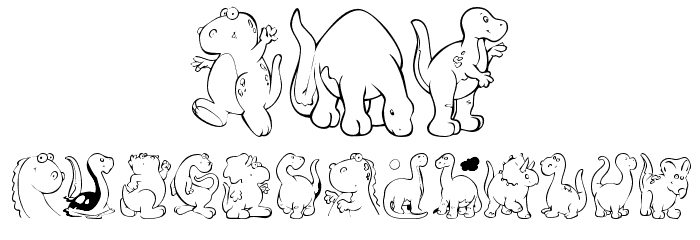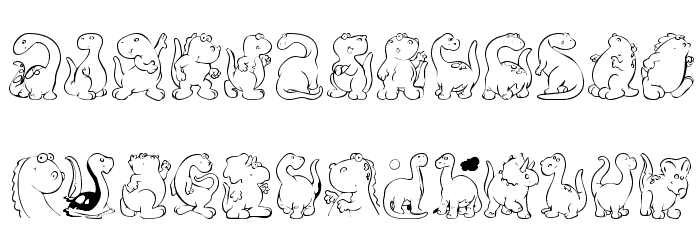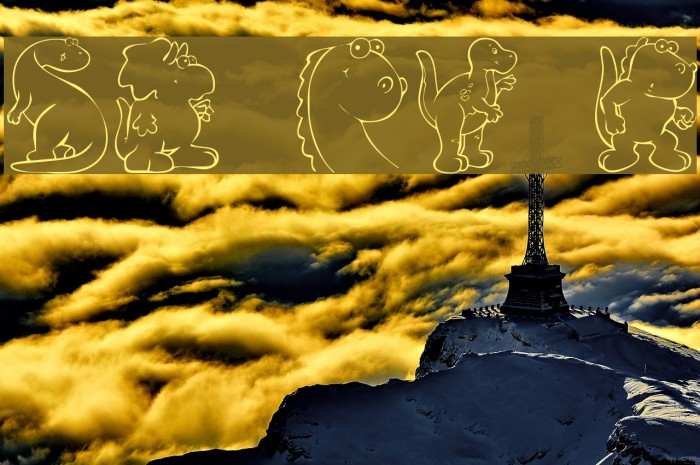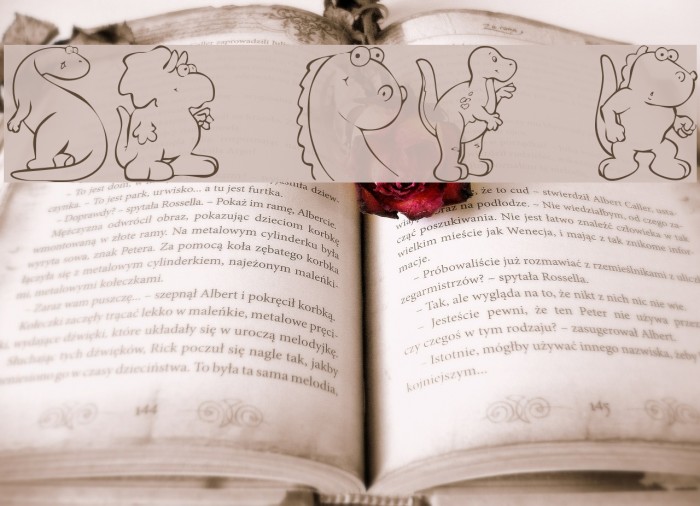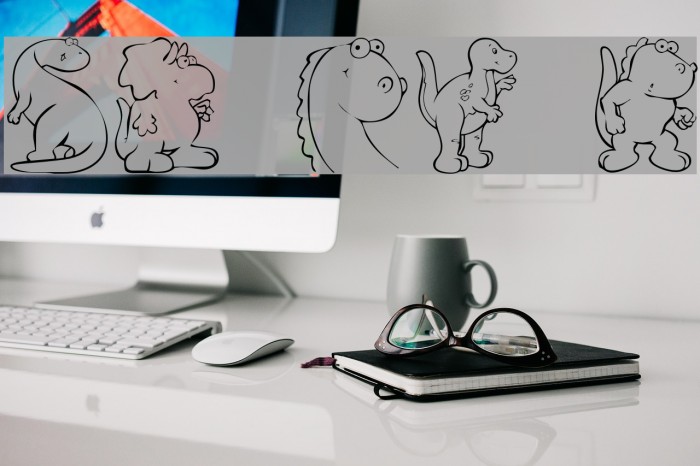
KR Nicky's Dinos Font
This playful and whimsical font features a series of charming dinosaur illustrations representing each character. Each letter is creatively transformed into a unique dinosaur, adding a fun and imaginative touch. The characters are outlined with a consistent stroke, giving them a cohesive look while maintaining individual personality. The font is perfect for children's projects, educational materials, or any design that requires a lighthearted and entertaining aesthetic. Its decorative style makes it stand out, capturing attention with its delightful and friendly dinosaur motifs.
A whimsical font with dinosaur illustrations for each character.
- Proposed Projects: Ideal for children's books, educational posters, playful branding, and themed party invitations.
- Overall Style: Playful, Whimsical
- Use Case: Logos, Headlines, Decorative text